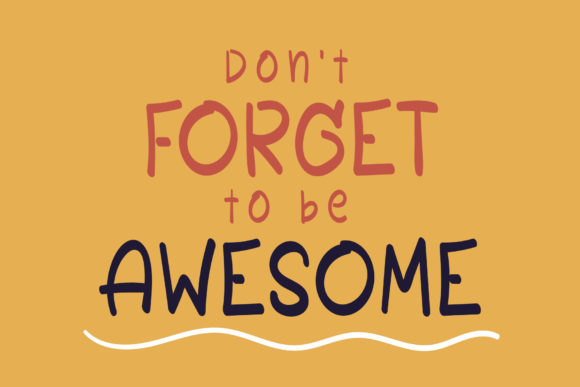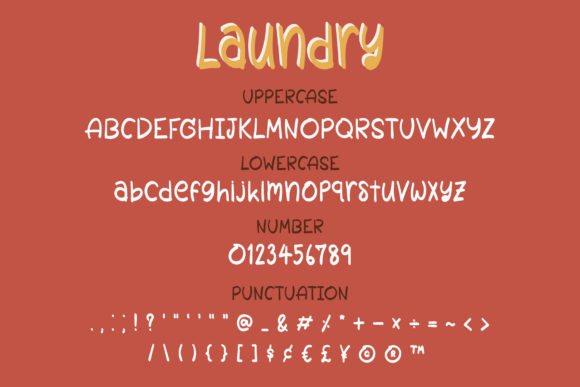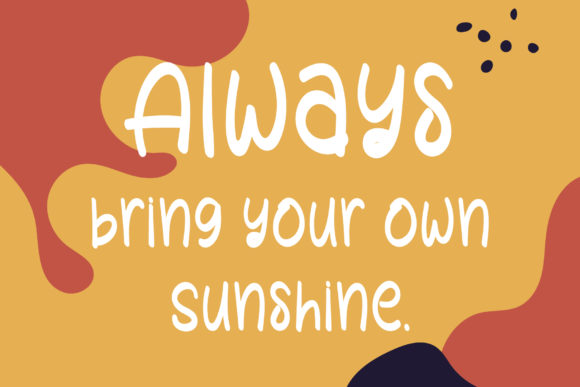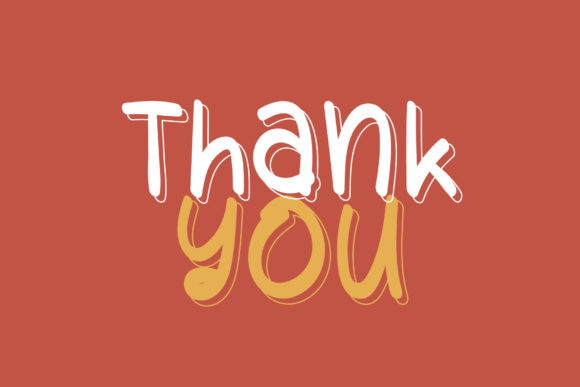
Introduction to Laundry Font
Laundry is a simple and neat handwritten font.
| 📌 Product Name | Laundry Font |
| 👤 Author | Wanida Toffy |
Key Features of Laundry Font